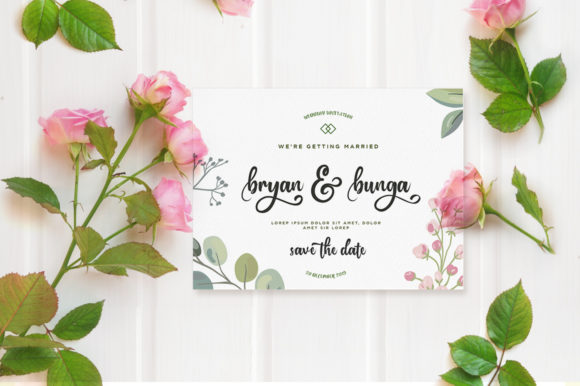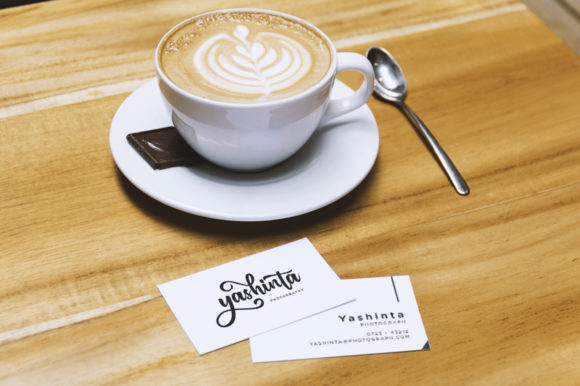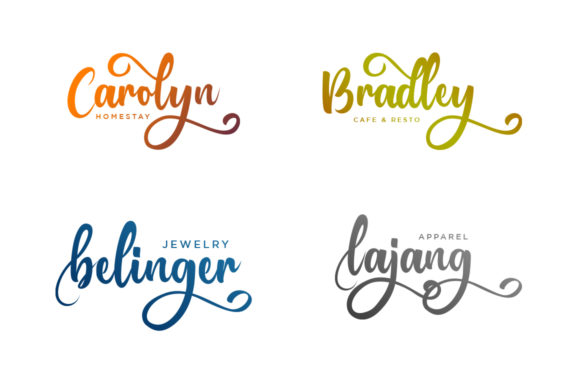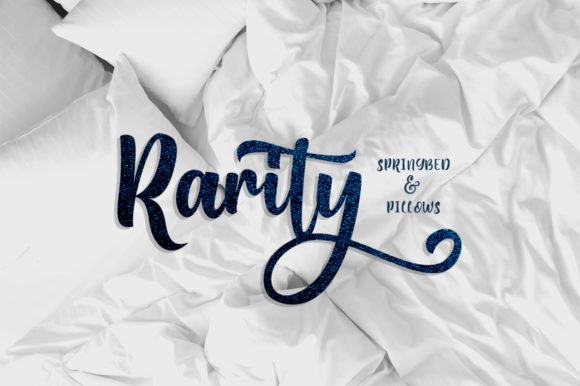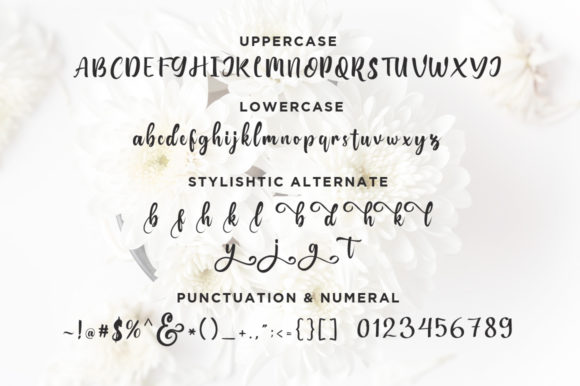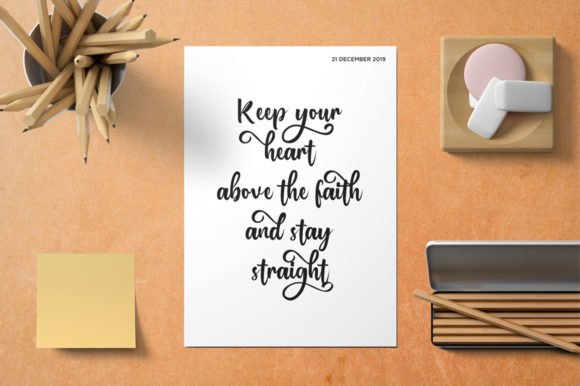
Unlocking the Magic of Bungalow Font
Have you ever found yourself staring at a blank page, waiting for the perfect words to flow? It’s that moment when creativity strikes, and you feel an overwhelming urge to bring your vision to life. As designers, we’ve all been there – searching for the perfect font to match our unique style and make our designs truly stand out. That’s where the Bungalow Font comes in – a stunning modern script font designed to elevate your designs to the next level.
Bungalow Font is more than just a beautiful script font; it’s a tool to help you convey emotion and personality through your work. Its elegant swashes and curves add a touch of sophistication, making it perfect for branding, invitations, and other creative projects. Whether you’re a seasoned designer or just starting out, the Bungalow Font is a valuable addition to your toolkit, helping you create stunning visuals that leave a lasting impression.
Bungalow Font Key Features
- Size: The font comes in multiple weights, ranging from 400 to 900, allowing designers to choose the perfect level of boldness or lightness for their project.
- Resolution: Bungalow Font is designed to be highly legible at various resolutions, making it suitable for both digital and print applications.
- Unique Characteristics: The font features a unique blend of modern and vintage elements, with subtle flair and ornate details that set it apart from more straightforward sans-serif fonts.
- Language Support: Bungalow Font supports a wide range of languages, including Latin, Cyrillic, and Greek, making it a versatile choice for global branding and design projects.
- Scalability: The font is designed to be highly scalable, ensuring that it remains crisp and clear even at very small or very large font sizes.
Bungalow Font Review
I recently had the chance to work with the Bungalow Font, and I must say it’s been an interesting experience. ✨ The font’s unique, vintage-inspired design really adds a touch of elegance to any project. The subtle irregularities and curves give it a handmade feel that’s perfect for creating a cozy, inviting atmosphere.
The Bungalow Font works particularly well in headings and titles, where its distinctive flair can really shine. It’s also a great choice for body text, especially when paired with a clear, easy-to-read sans-serif font.
- ✨ Unique, vintage-inspired design
- ✨ Adds a touch of elegance to any project
- ✨ Perfect for creating a cozy, inviting atmosphere
- ✨ Works well in headings and titles
- ✨ Great choice for body text, especially when paired with a clear, easy-to-read sans-serif font
- ⚠️ May not be suitable for projects that require a clean, modern look
- ⚠️ Can be challenging to read in small font sizes
The Bungalow Font is a great choice for designers who want to add a touch of personality to their projects. While it may not be suitable for every project, its unique design and versatility make it a valuable addition to any font collection.
The Bungalow Font is a versatile font that can be used for a variety of purposes, including:
- Crafting invitations and party decorations
- Creating social media posts and advertisements
- Designing wedding stationery and event materials
- Adding a personal touch to your brand’s marketing materials
Remember to adjust the font size and style to fit your design and ensure readability.